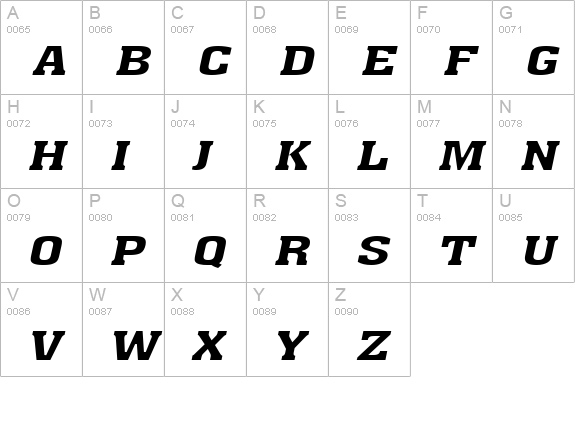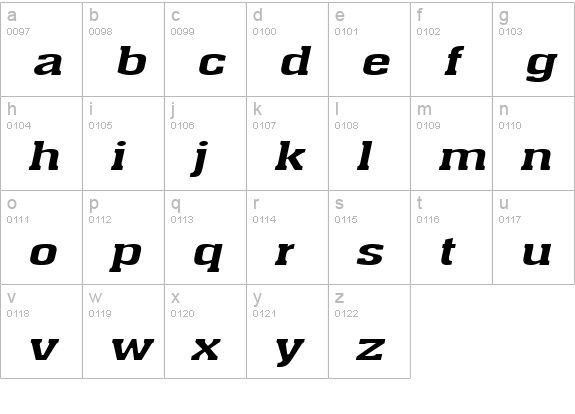
Ache Extended Italic Font Details
Ache Extended Italic is a distinctive, extended-width, italic variant in the Ache typeface family \xE2\x80\x94 well suited to design and typography projects.
Ache Extended Italic font is a stylish and modern typeface with a touch of elegance. The italic design adds a sense of sophistication and fluidity to any text it is applied to. Its extended proportions give it a unique and eye-catching look that is perfect for headlines, titles, and branding projects. This font is not only visually appealing but also highly versatile, making it suitable for a wide range of design applications. Whether you're working on a website, poster, logo, or any other creative project, Ache Extended Italic font will elevate your design and make it stand out. Best of all, this font is available for free download at FontsMarket.com. So go ahead and add Ache Extended Italic font to your font collection today and bring a touch of elegance to your next design project.